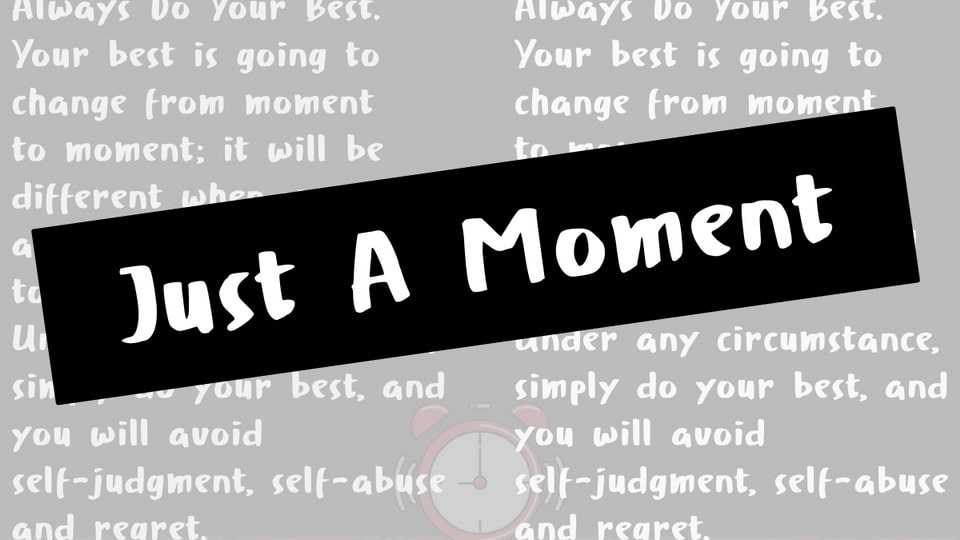
Download Just A Moment font, a simple handwritten marker doodle typeface. With its rugged and raw look, Just A Moment font is perfect for DIY themed projects and designs.